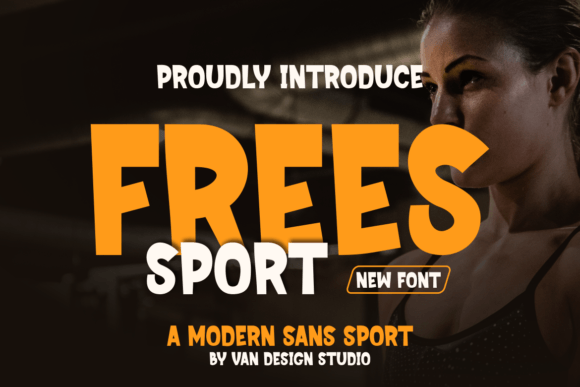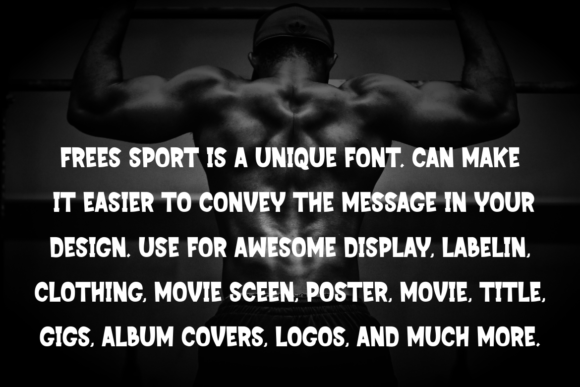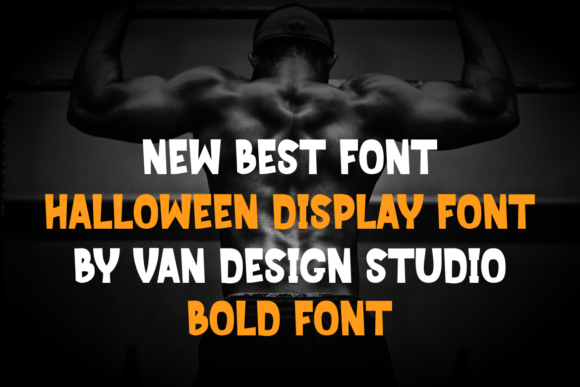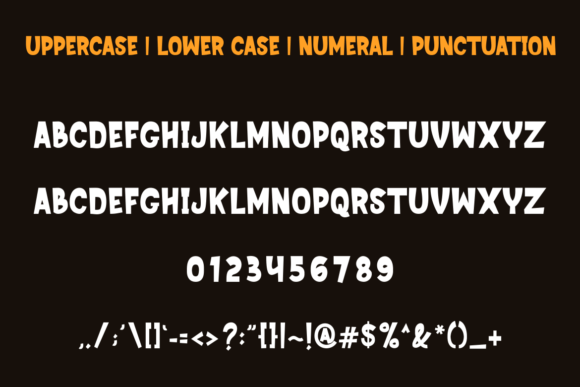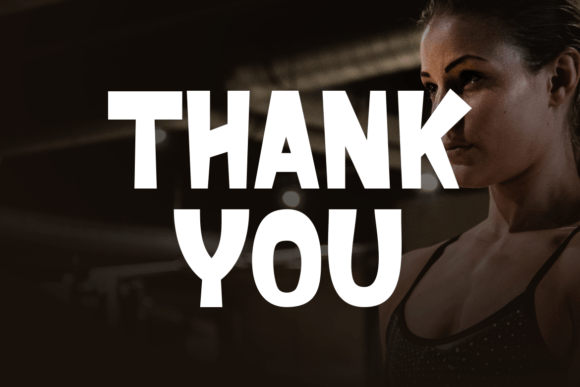
The Perfect Kick-Off for Your Design Projects
You’ve spent hours pouring over your latest design project, and just as you’re about to call it a night, that one missing piece clicks into place. The perfect font, the one that elevates your entire creation and leaves a lasting impression, has finally been found. For many designers, that moment is all too familiar, and it’s exactly what the Frees Sport Font is designed to deliver.
This bold and assertive sans font is the ultimate game-changer for any design project. Whether you’re creating a sports-themed logo, a fitness-inspired poster, or simply want to add some edge to your branding, the Frees Sport Font has the potential to take your design to the next level. Its versatility and striking aesthetic make it an invaluable asset for designers looking to make a statement.
- Unique Characteristics: Frees Sport Font features a dynamic, energetic design with bold lines and rounded edges, making it perfect for sports and fitness-related projects.
Frees Sport Font Review
Frees Sport Font is a stylish, modern font that exudes energy and dynamism. ✨ Its sleek lines and rounded edges give it a friendly, approachable feel that’s perfect for sports-related branding, merchandise, or promotional materials.
Here are some of the things I like about Frees Sport Font:
- Highly versatile: it works well for titles, headings, and body text.
- Great for digital use: it’s clear and legible on screens.
- Customizable: it comes in a range of weights, from light to bold.
- Part of a larger family: it’s available in various styles, including sans-serif and script.
However, I do have a few reservations:
- May not be suitable for formal or professional applications.
- Limited expressive range: it’s a fairly straightforward, modern font.
- Not ideal for long blocks of text: its legibility suffers when used extensively.
Overall, Frees Sport Font is a solid choice for projects that require a sporty, youthful vibe. While it may have some limitations, its strengths make it a great addition to any designer’s toolkit.
Tips for Getting the Most Out of Frees Sport Font
For best results, use Frees Sport Font for headings and titles, as it is a bold and eye-catching font. Use it in combination with a clean and simple font for body text.
Frees Sport Font is perfect for:
- Sports and fitness branding
- Event and tournament promotions
- Outdoor and action sports marketing